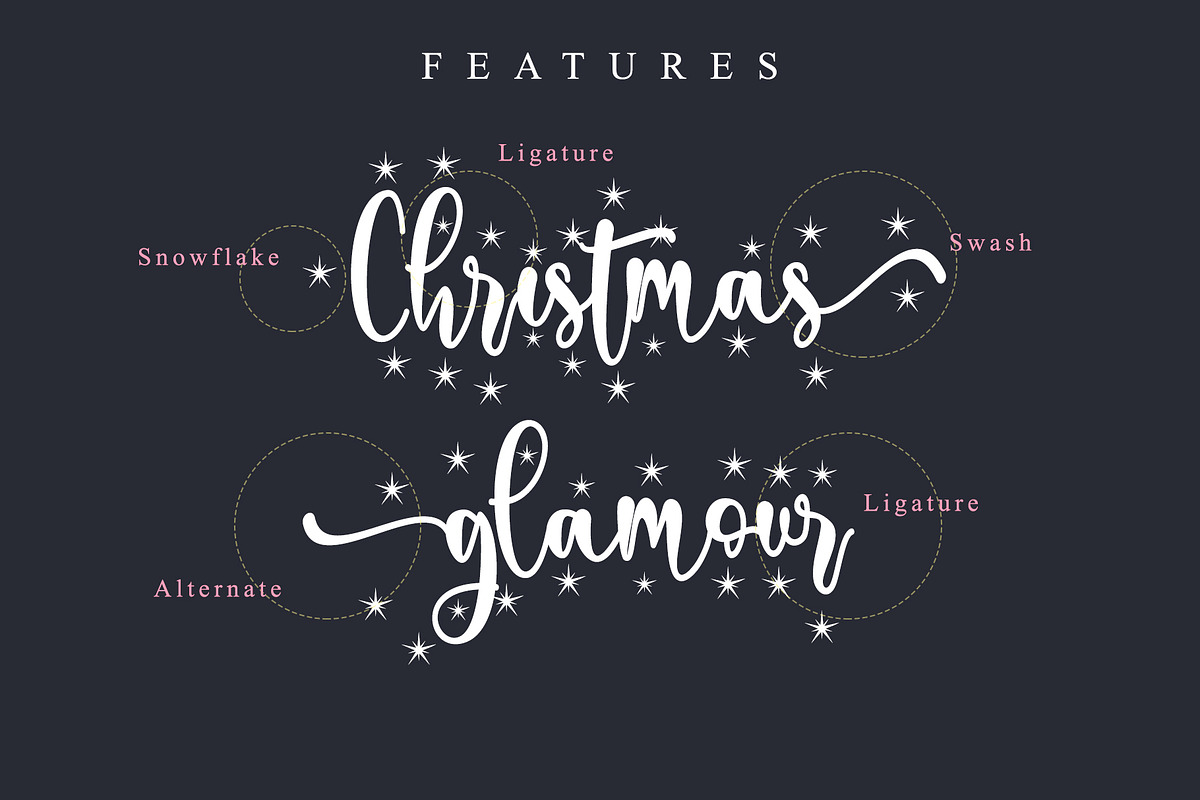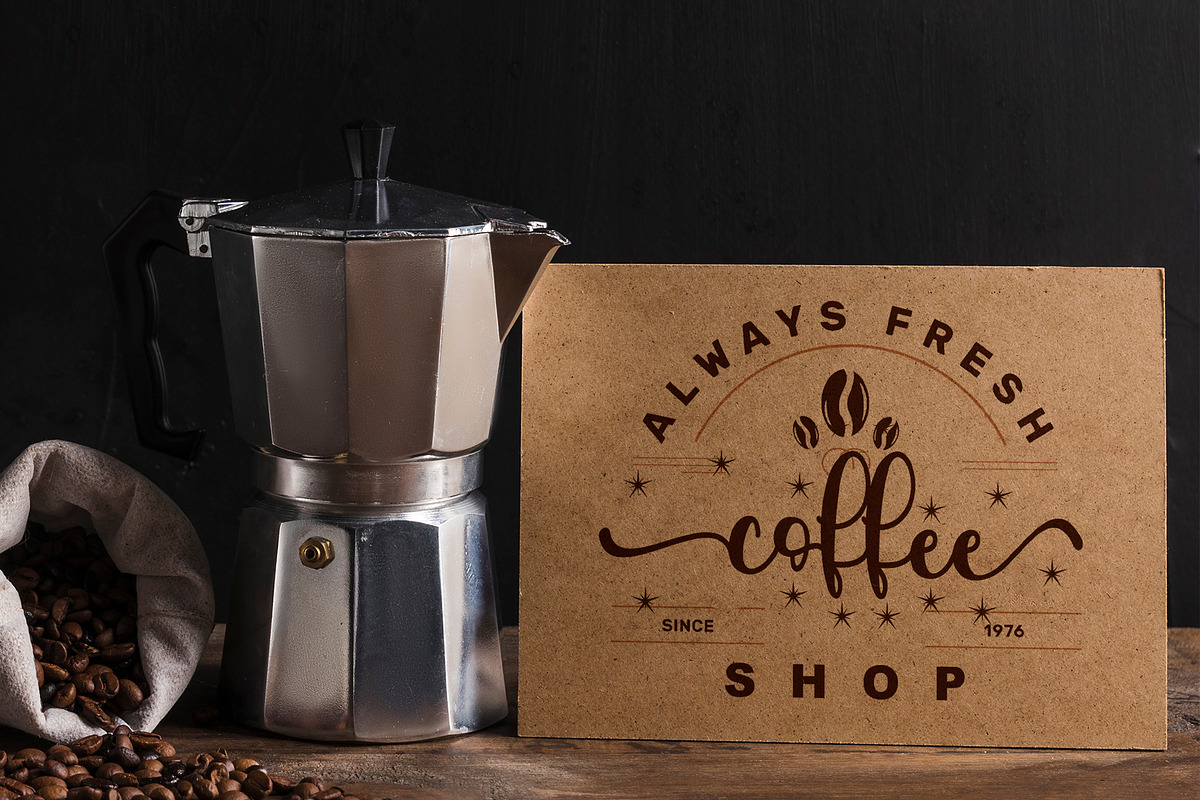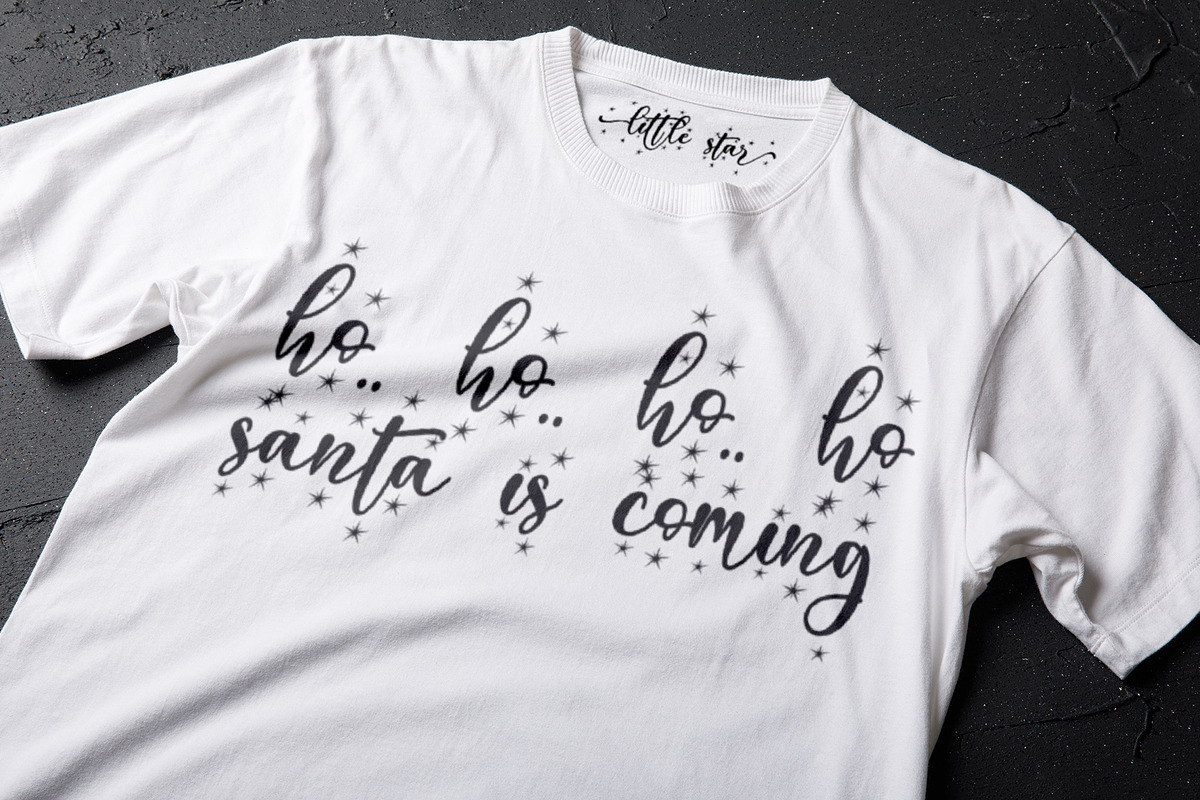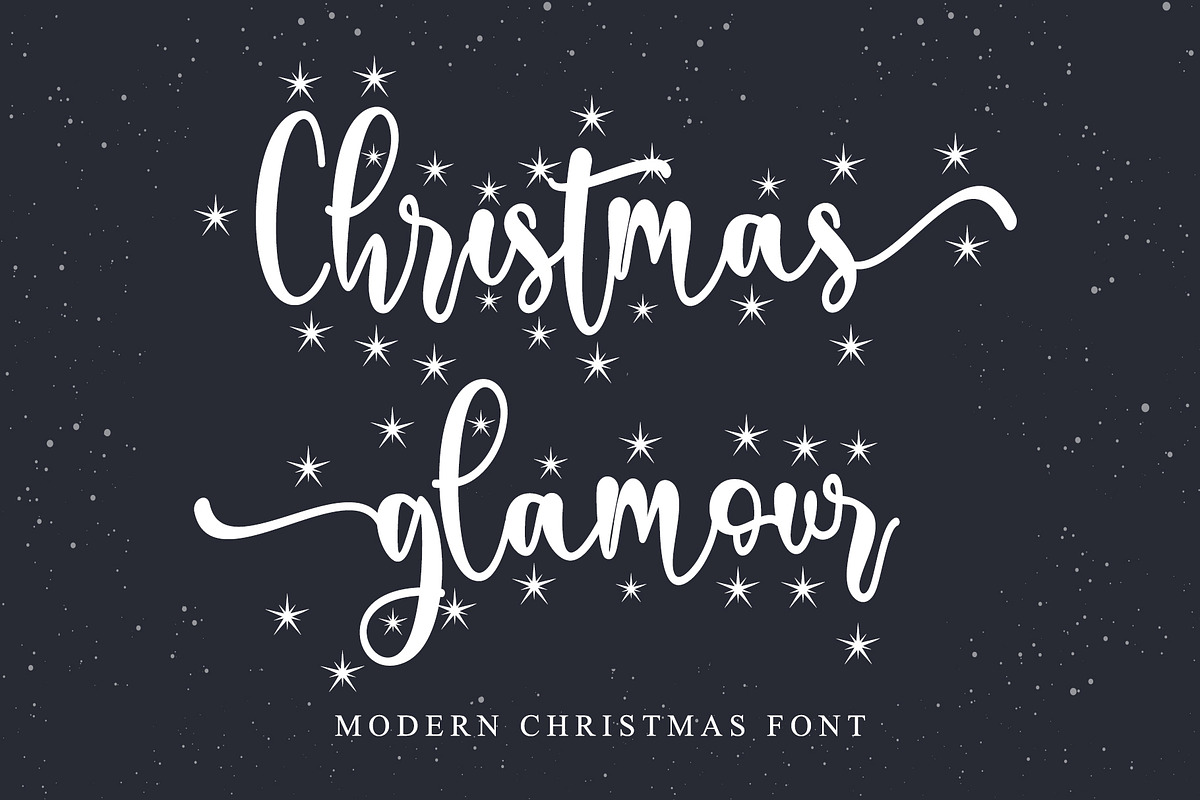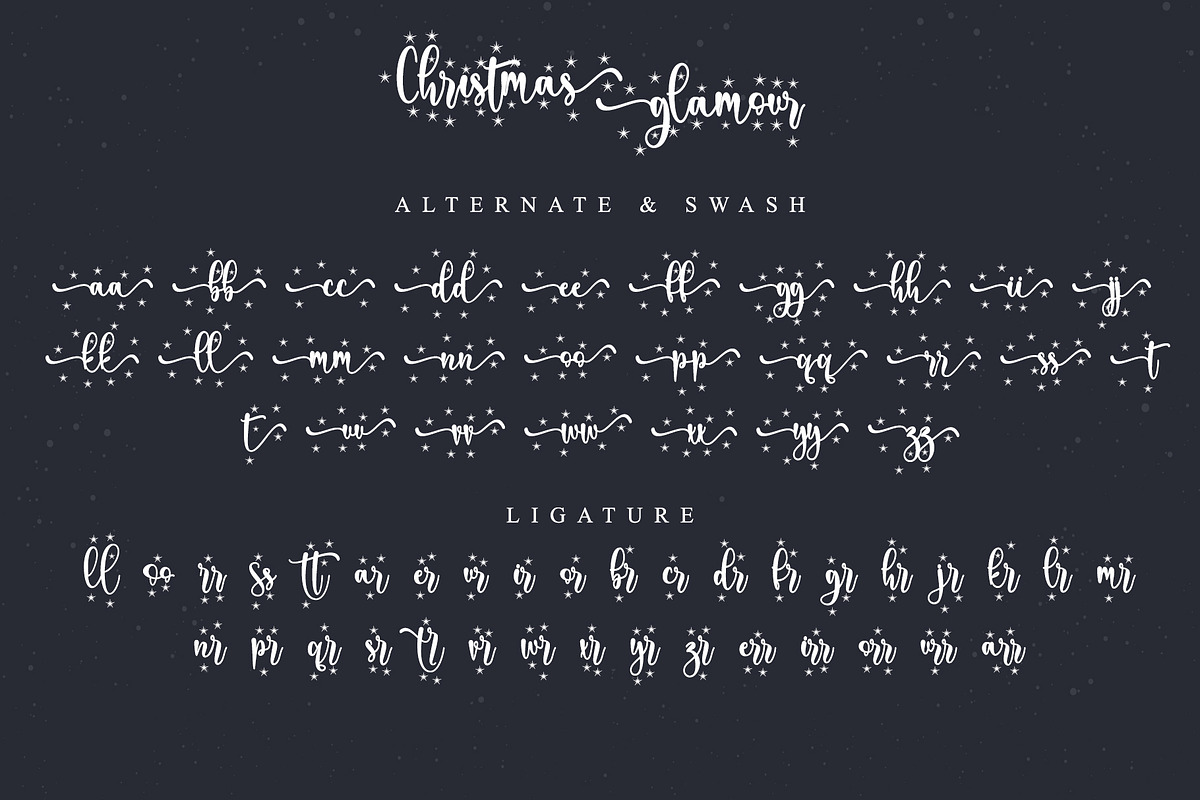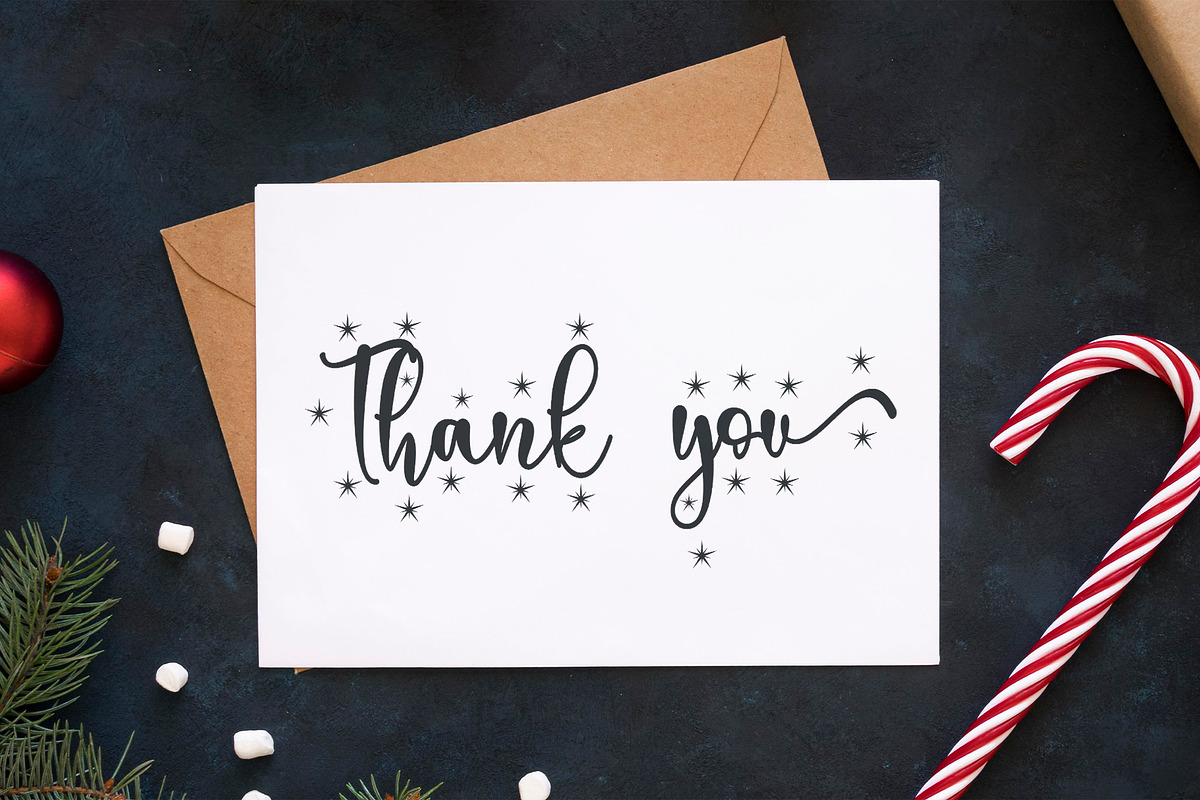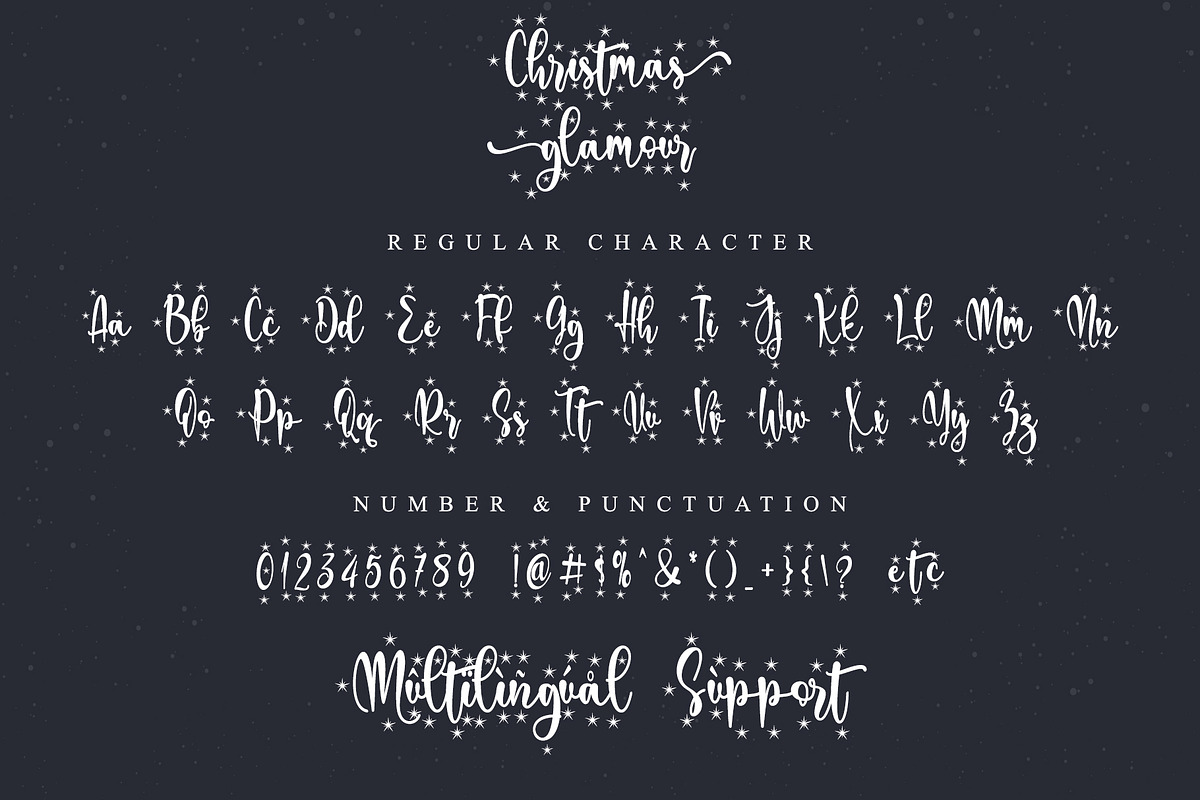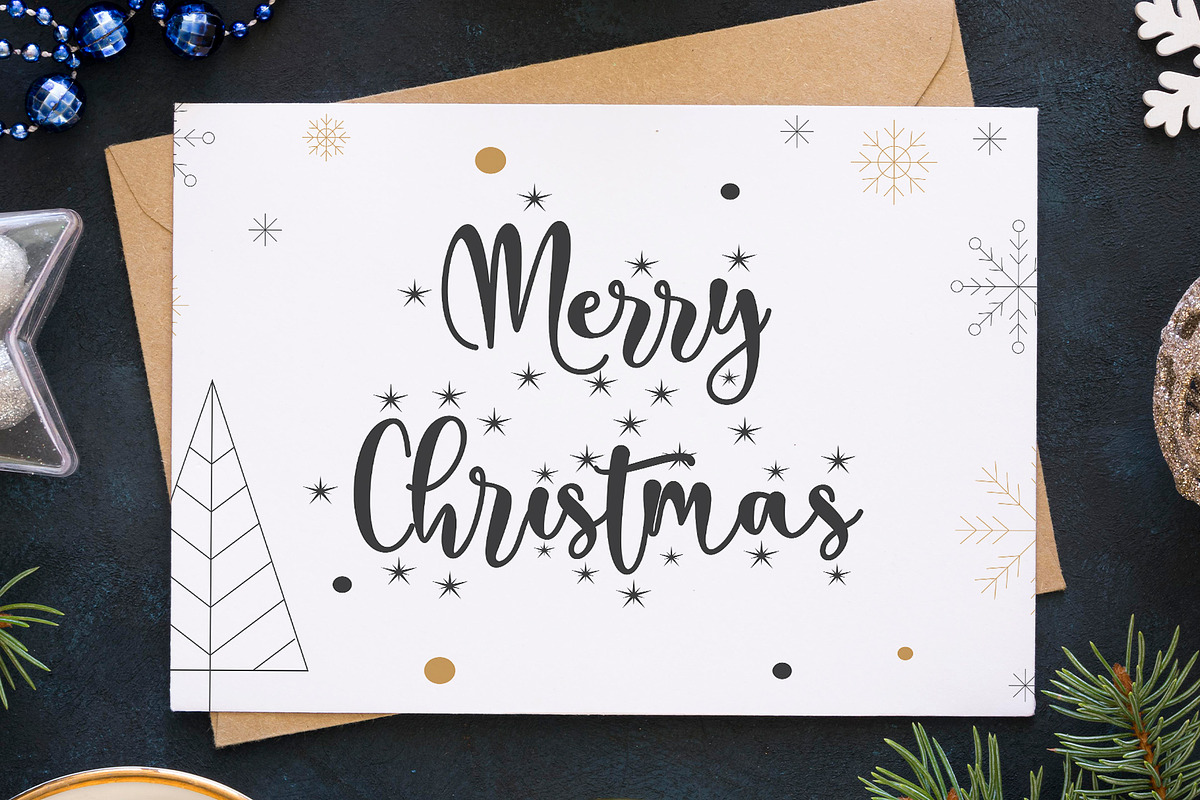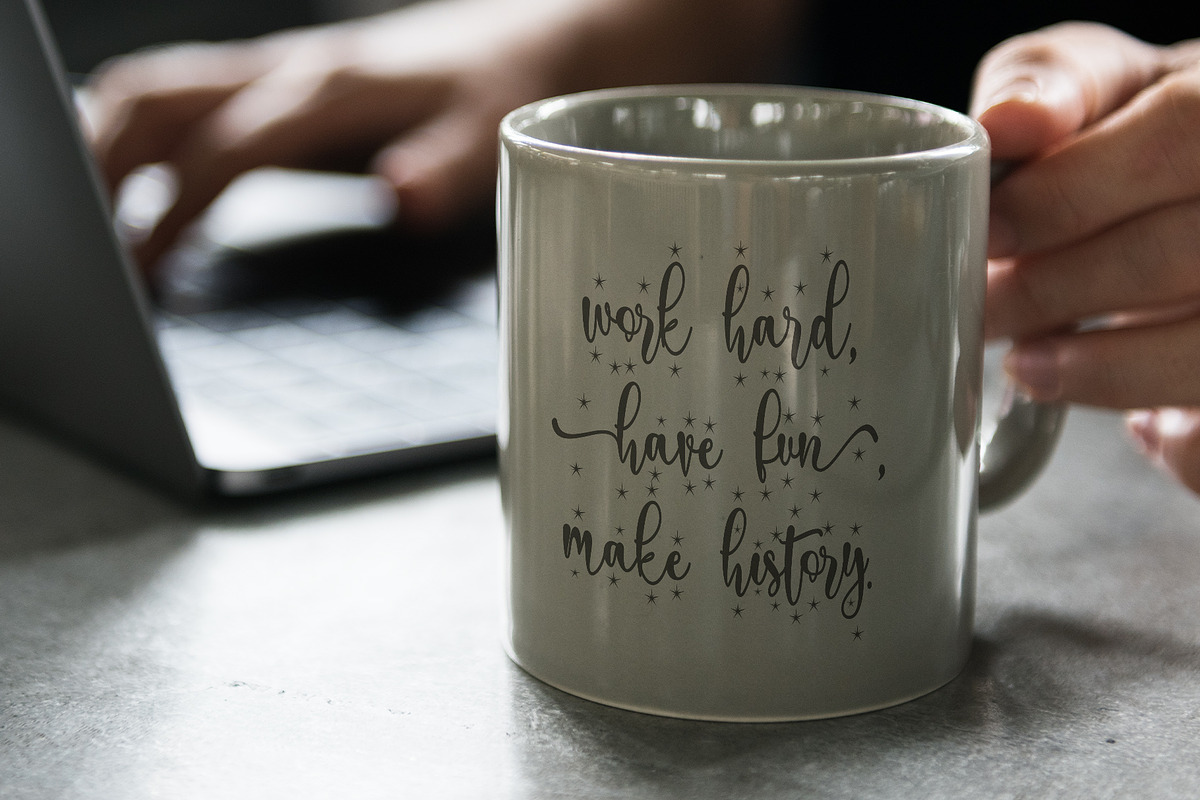
Christmas glamour
Christmas glamour is a friendly, fresh, rich, and beautiful handwritten font. It is ideal for holiday-themed greeting cards, invitations, logotype, branding, stationery, poster, and any project that requires a beautiful touch. Fall in love with its incredibly distinct and timeless style and use it to create spectacular designs! This font is PUA encoded which means you can access all of the glyphs.
- Support multilingual; ä ö ü Ä Ö Ü ß ¿ ¡
- lowercase and uppercase letters
- Alternate, Swash, ligature & Snowflake